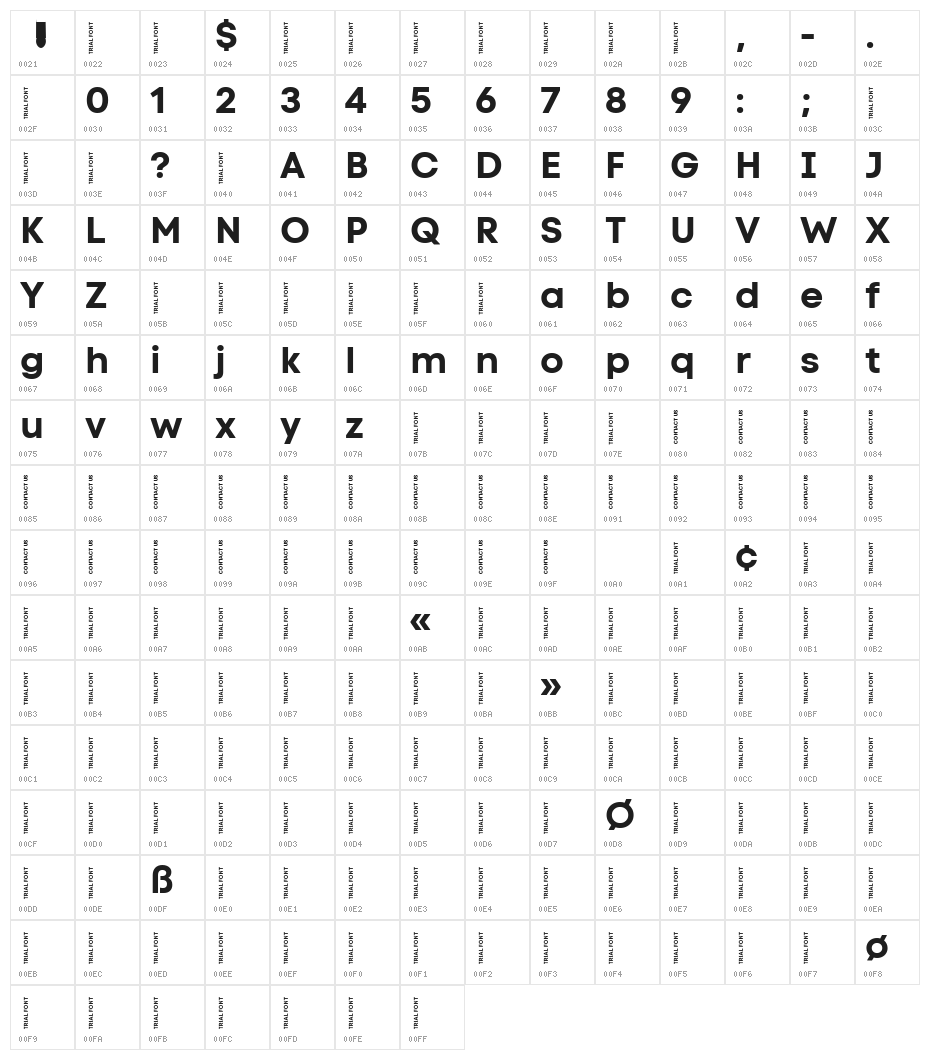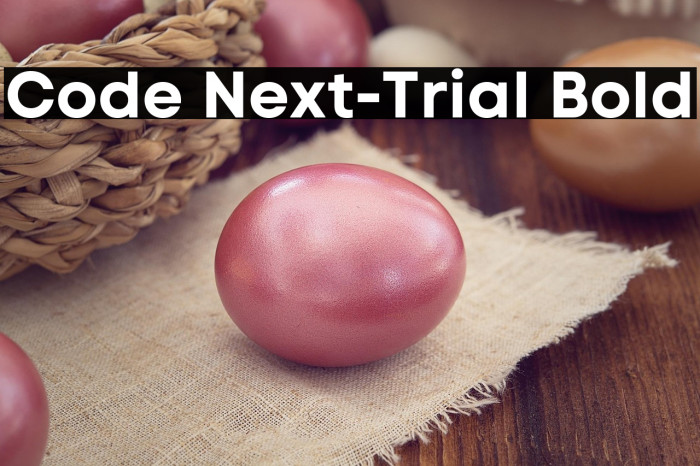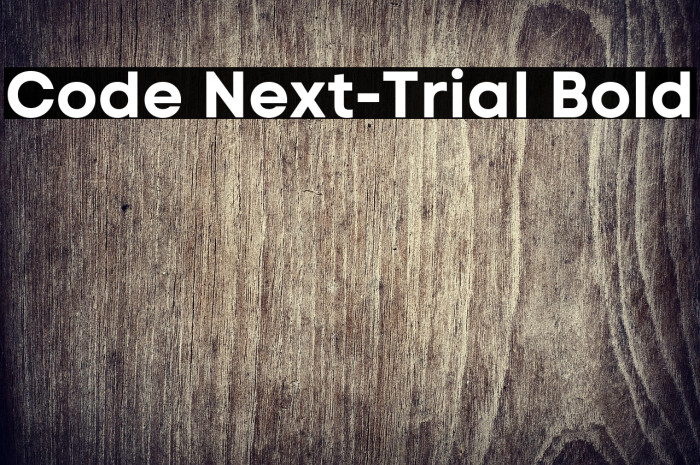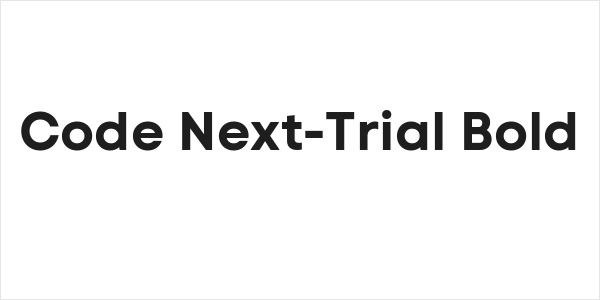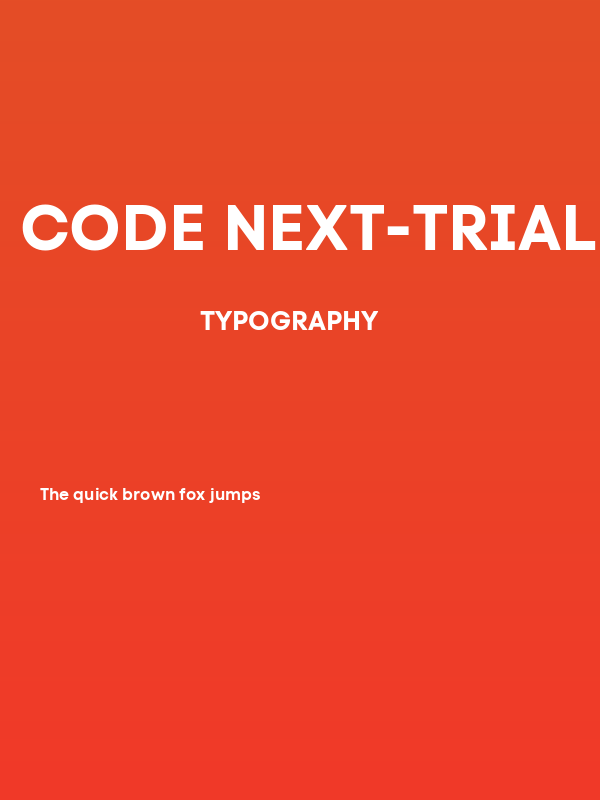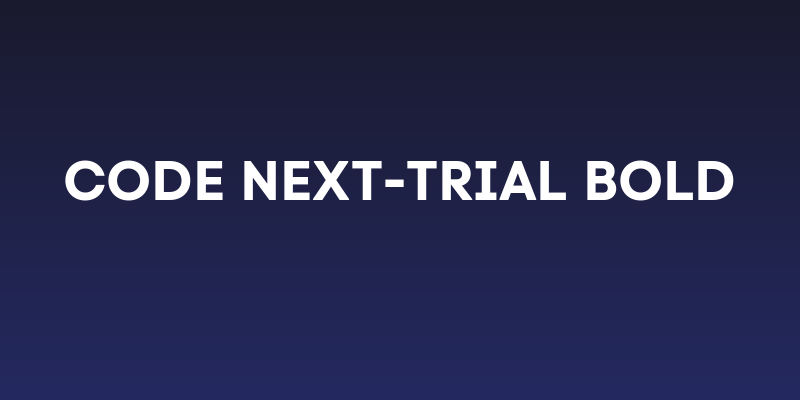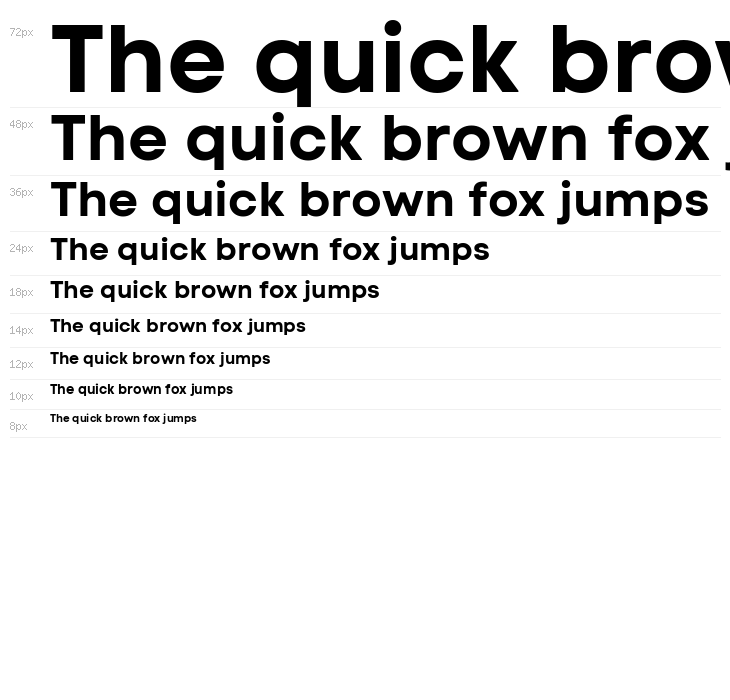
Code Next-Trial Bold Font
✎ Sans Serif
| Caso de uso | Headlines, Logos, Digital Interfaces |
| Proyectos propuestos | Ideal for branding, advertising, headlines, and digital interfaces where a modern and bold statement is needed. |